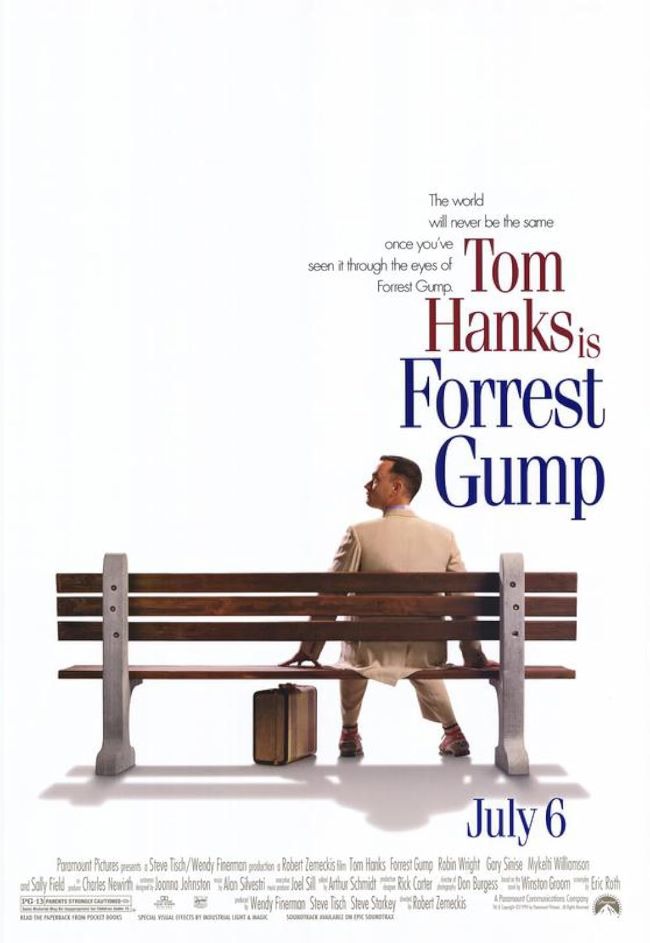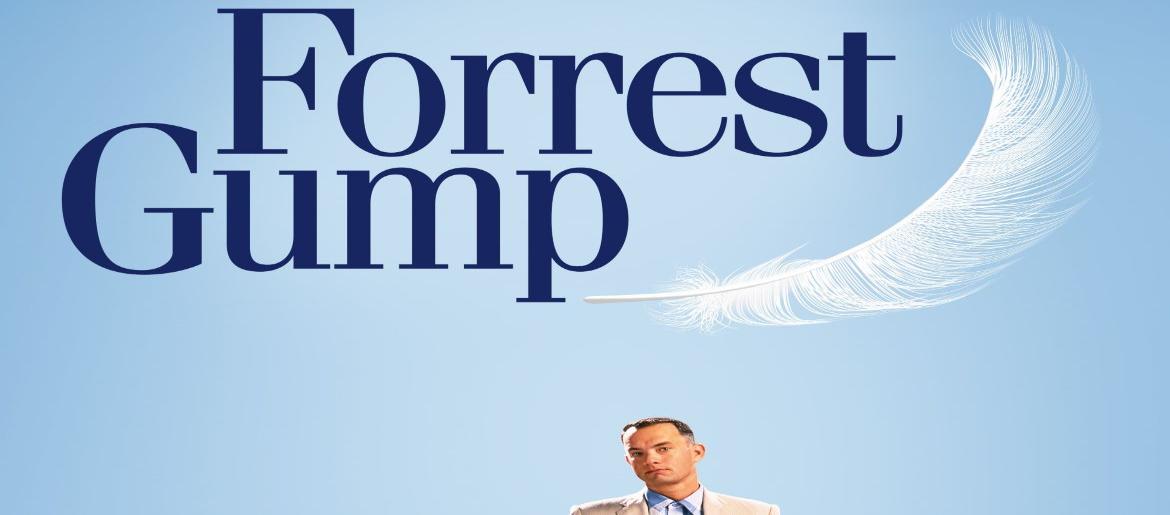
Forrest Gump Font
The Forrest Gump Font captures the gentle and nostalgic spirit of Robert Zemeckis’ classic 1994 film. The movie title is presented in a graceful serif typeface that mirrors the heartfelt simplicity of Forrest’s story. Its design feels timeless and pure, embodying the same sincerity that made the film unforgettable.
Tom Hanks’ Academy Award–winning portrayal helped define this cinematic masterpiece, and the film’s typography echoes its emotional honesty. Instead of using a loud or extravagant design, the Forrest Gump font opts for a refined, traditional look—making it instantly familiar yet understated in the best way.
The typeface that closely resembles the Forrest Gump logo is MADE Saonara, a classic serif font admired for its elegant lines and balanced letterforms. While it wasn’t designed exclusively for the movie, it has become the go-to choice for fans recreating film posters, artwork, and nostalgic tributes inspired by this beloved story.
The enduring love for the Forrest Gump font proves how typography can evoke emotion and memory. Much like Forrest’s life journey, the typeface stands for simplicity, purity, and a sense of timeless storytelling that continues to connect with audiences around the world.